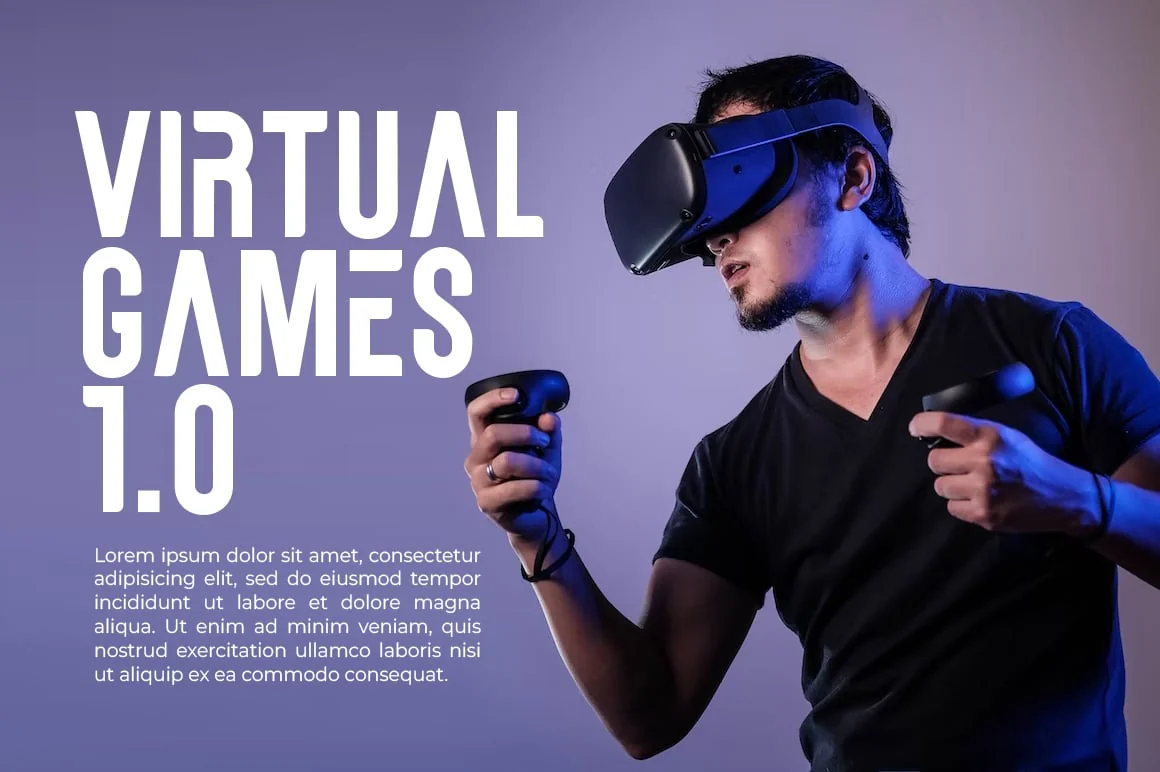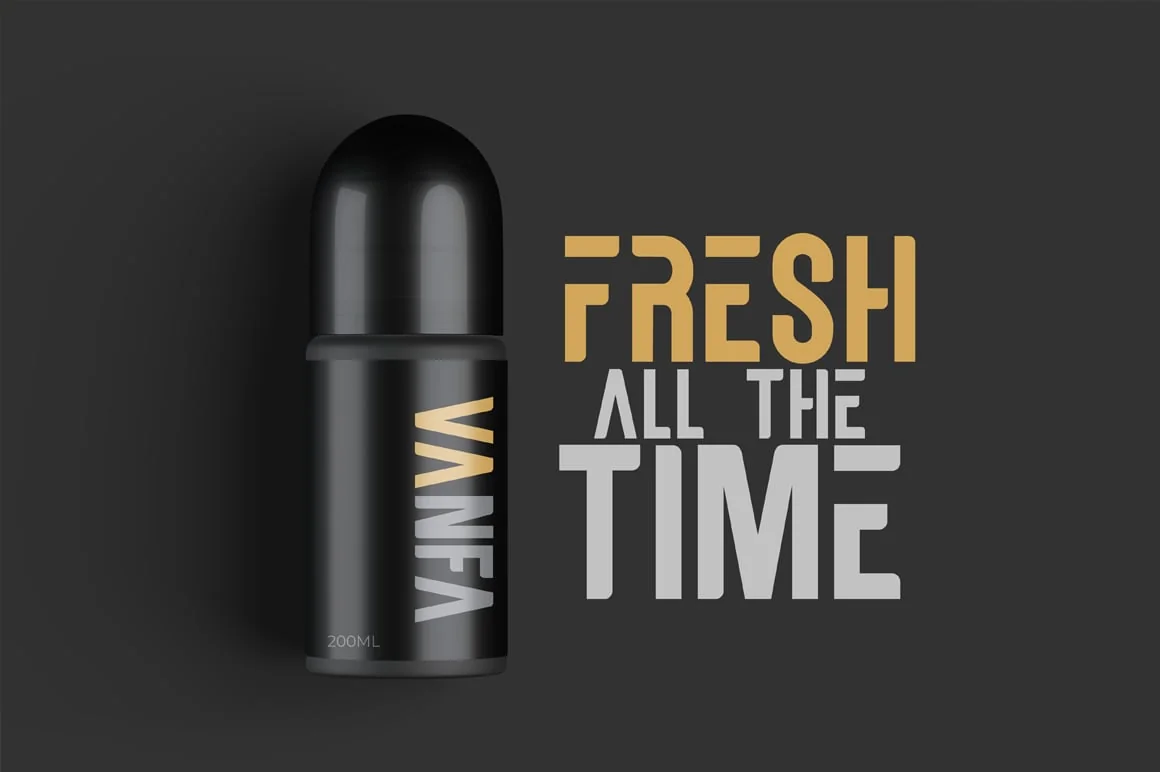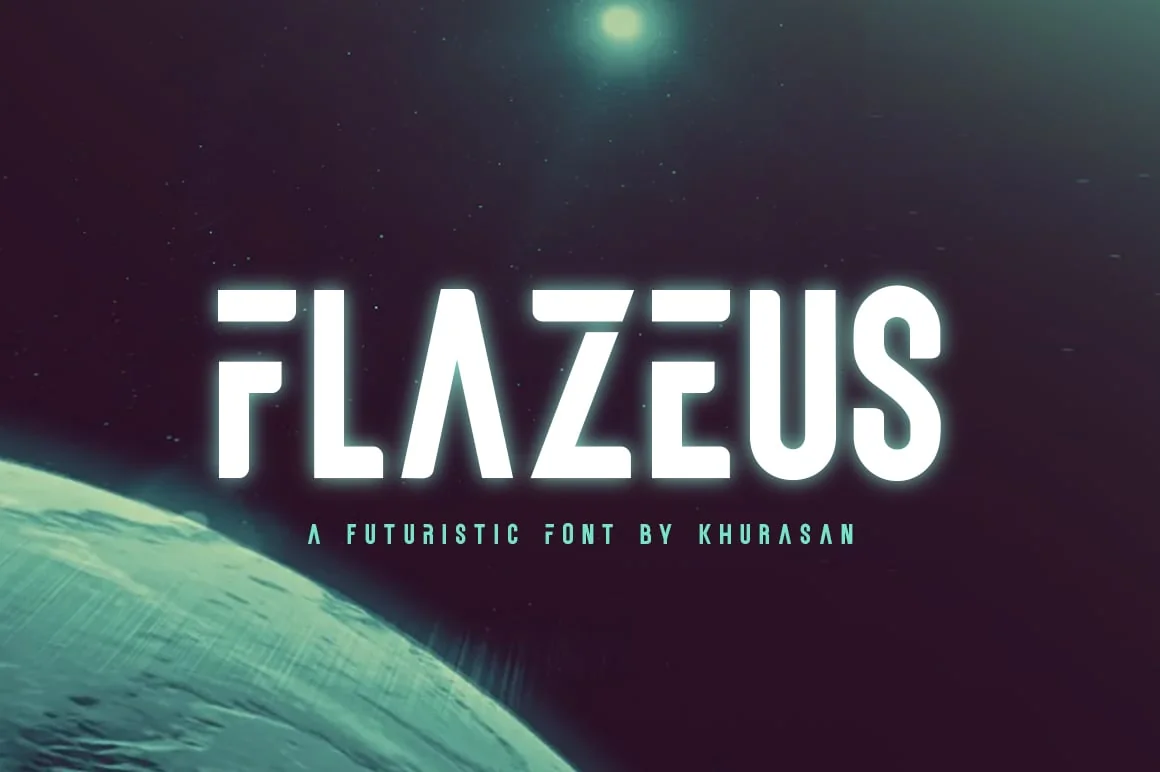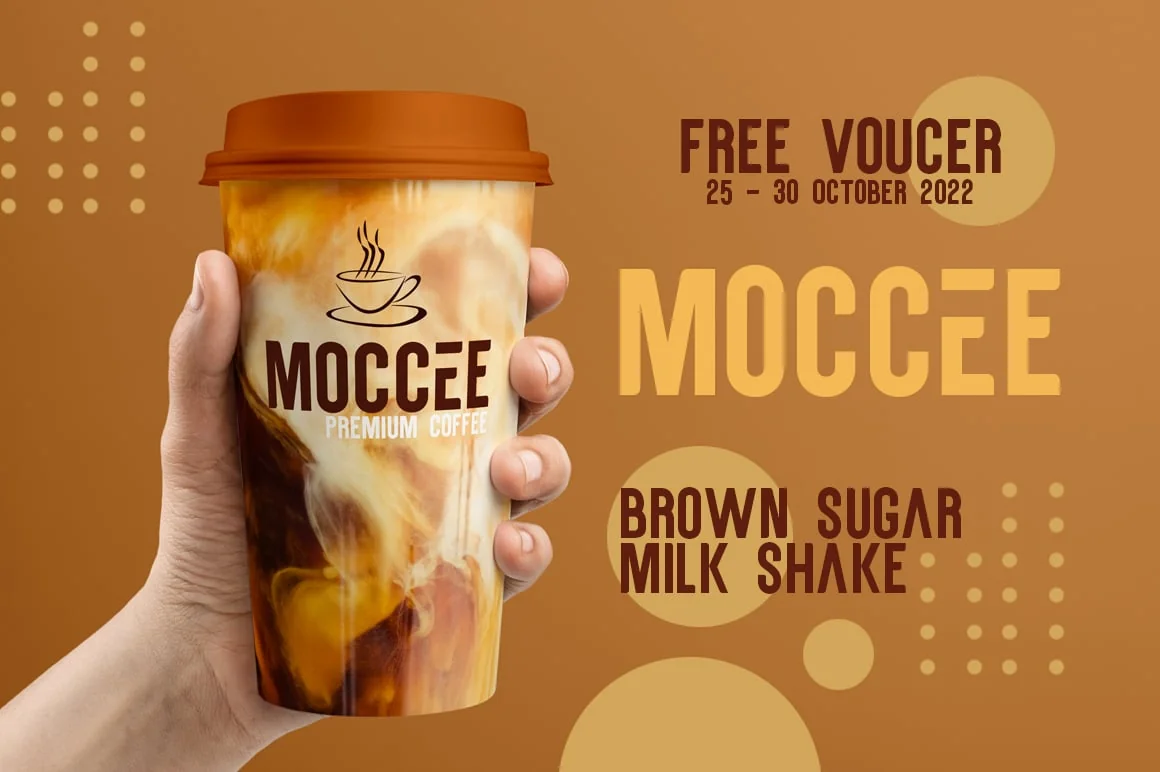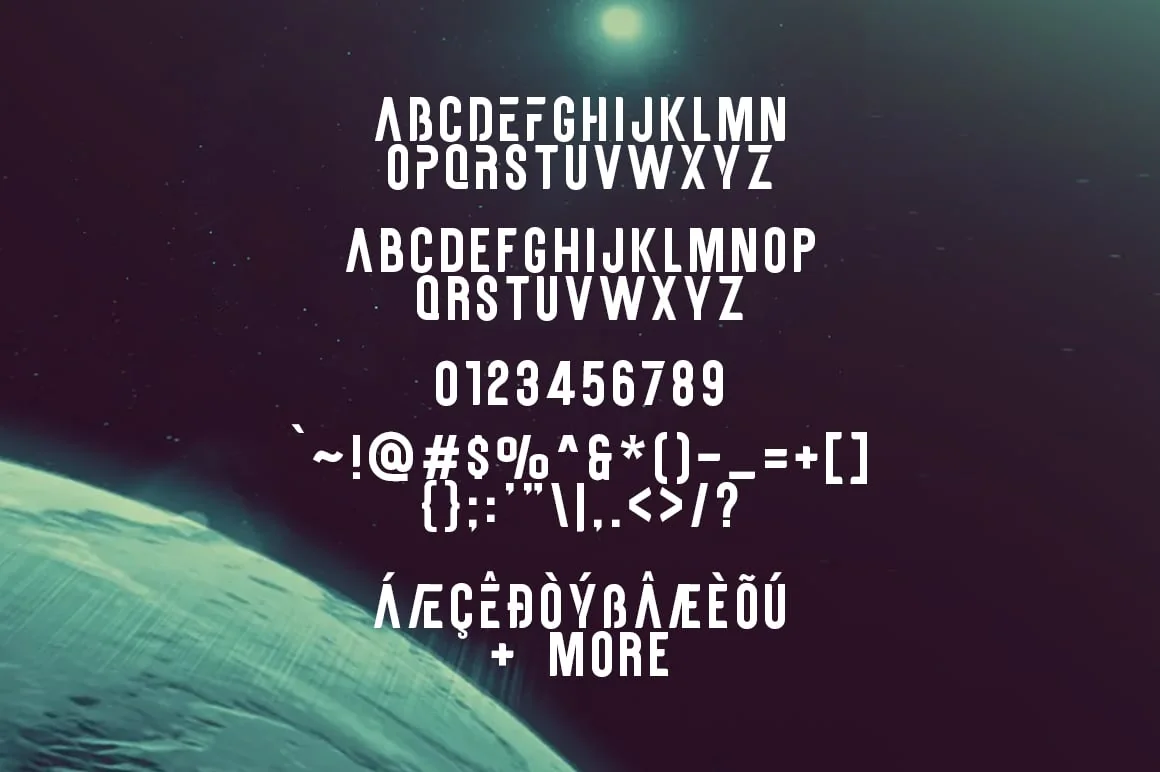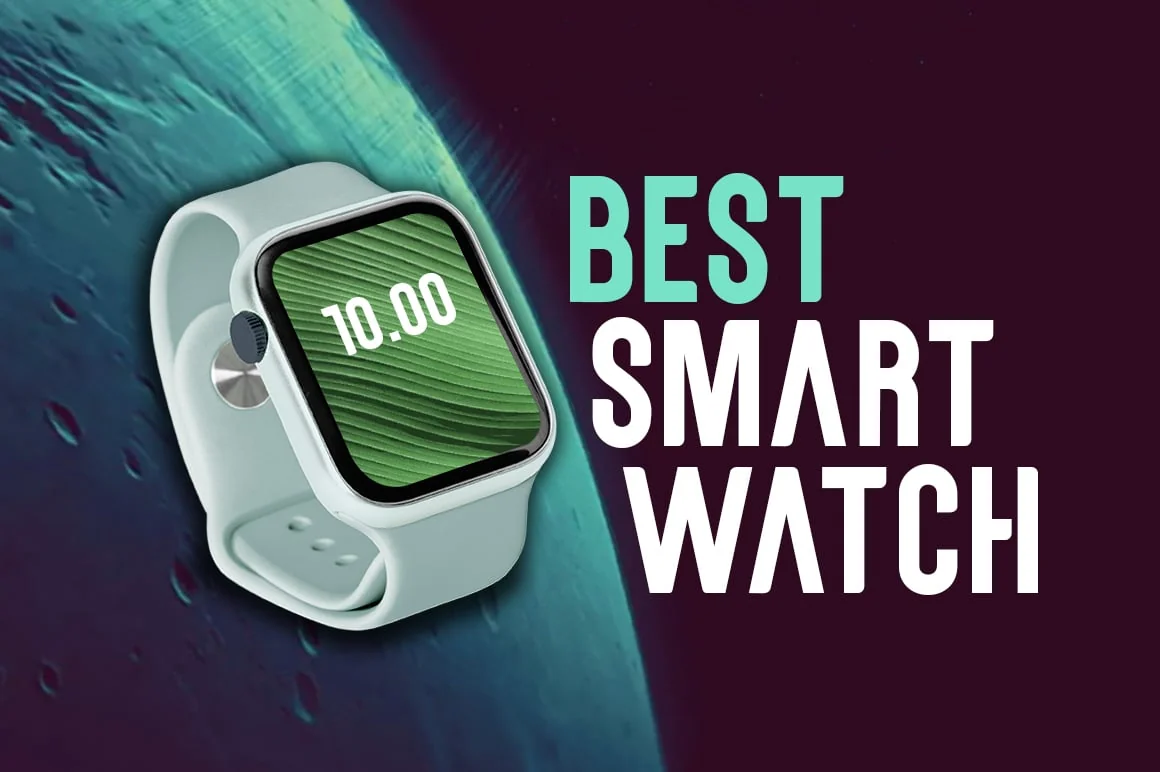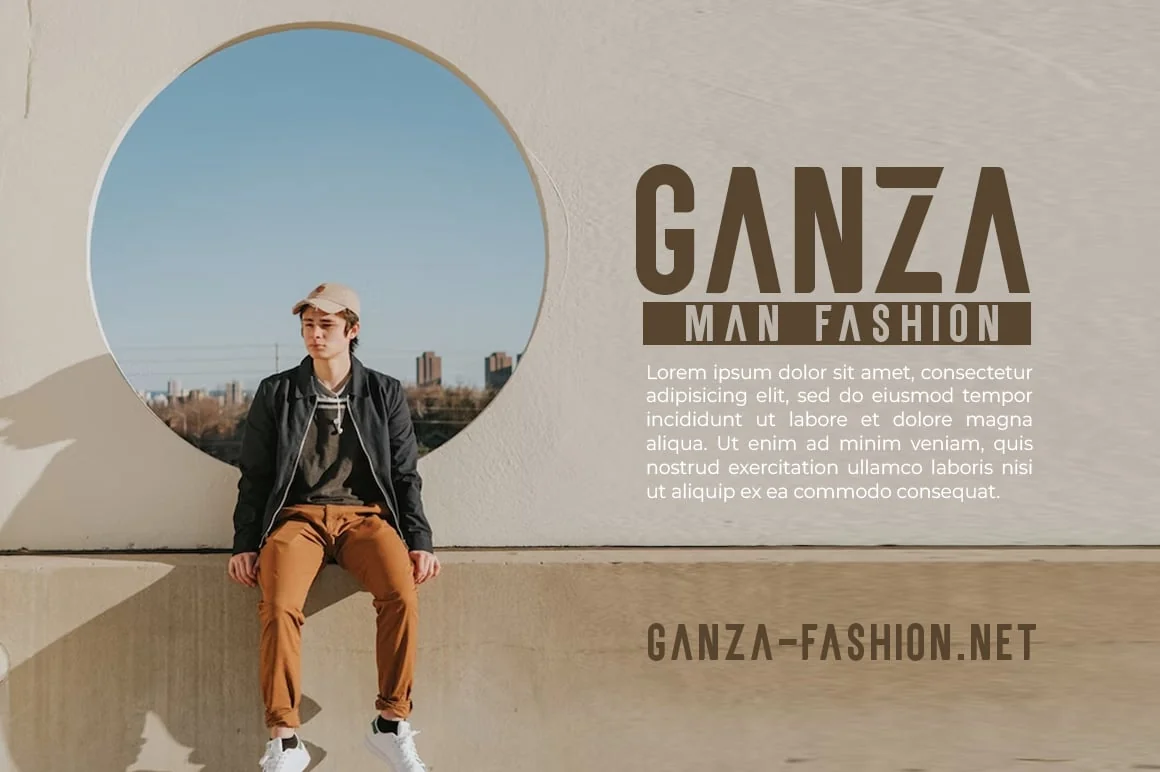
Flazeus – Futuristic Logo Font
Introducing, Flazeus is a unique and futuristic sans-based font that makes your designs more modern. The Flazeus font is also perfect for creating modern logos and logos, branding, greeting cards, branding, posters and any design you create.